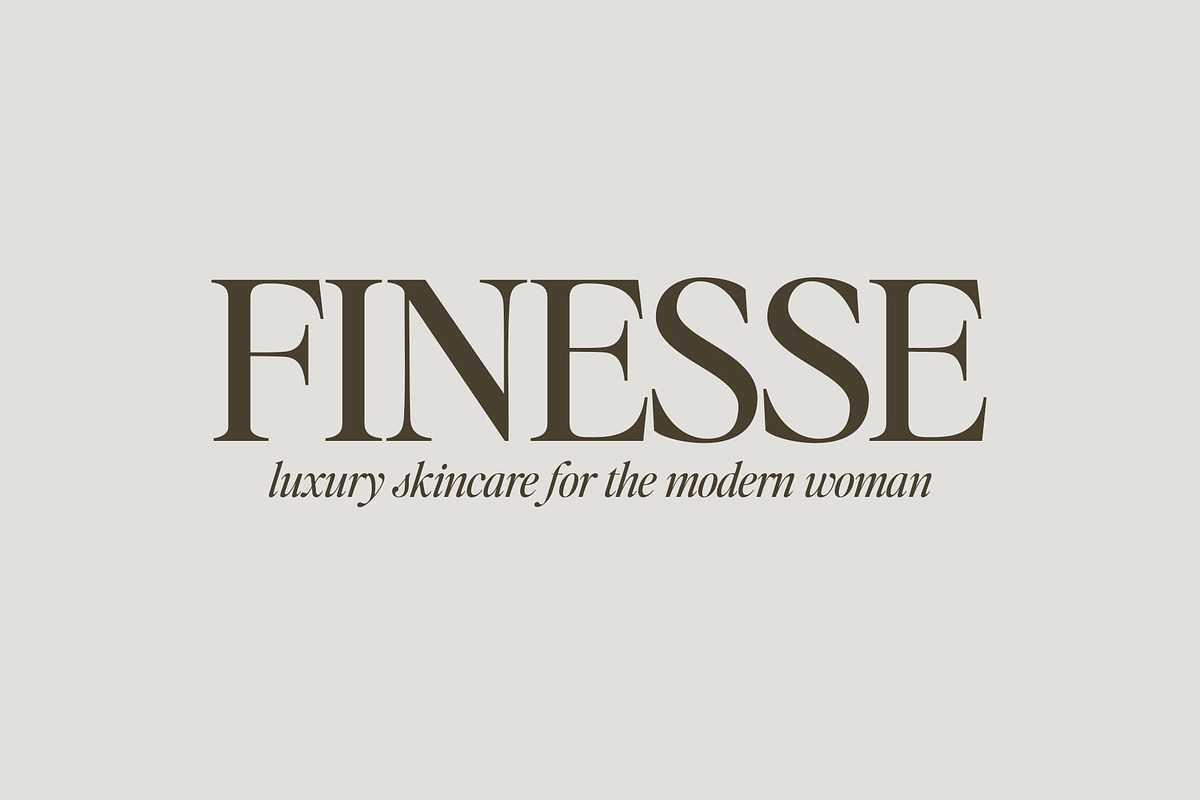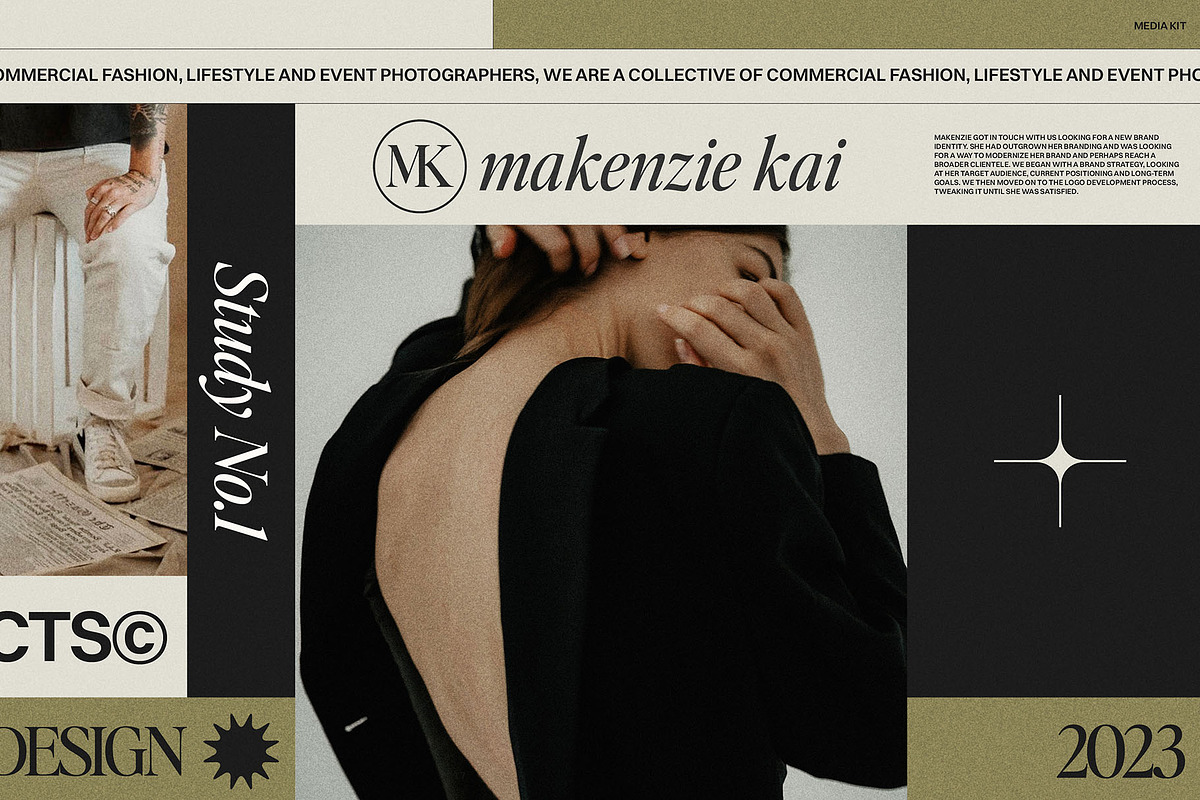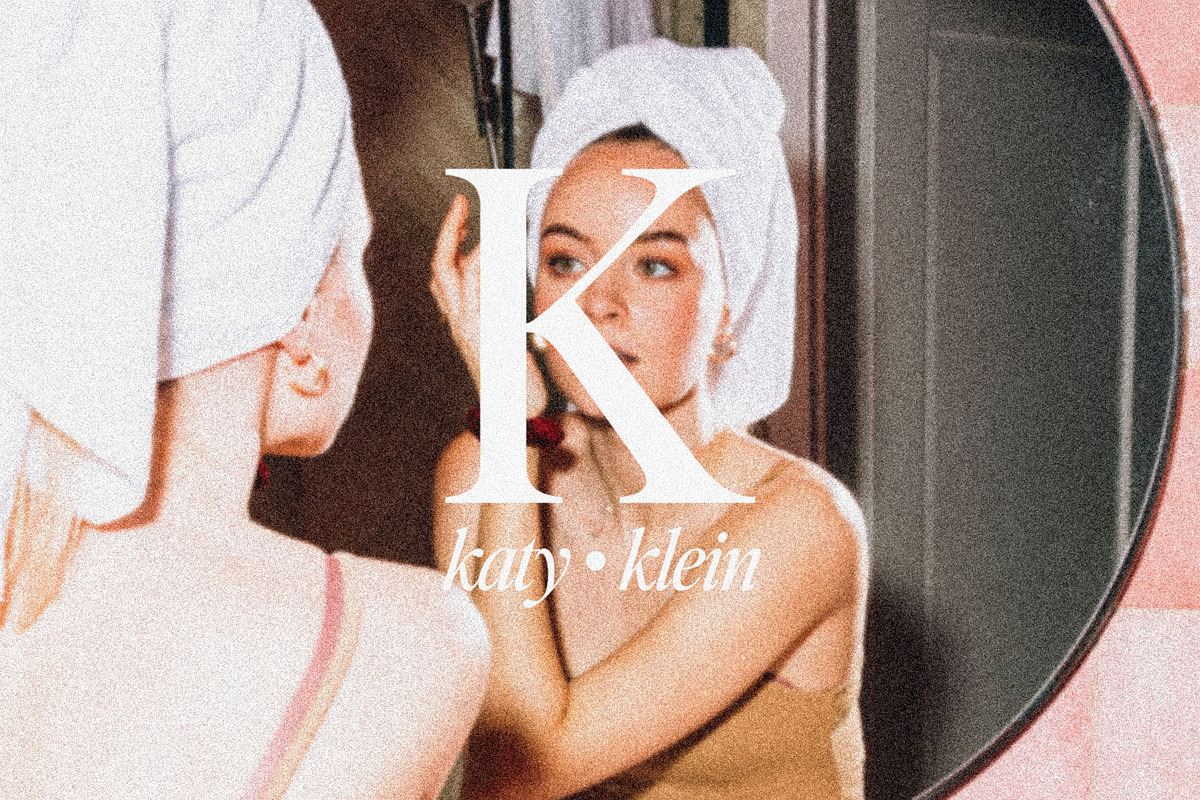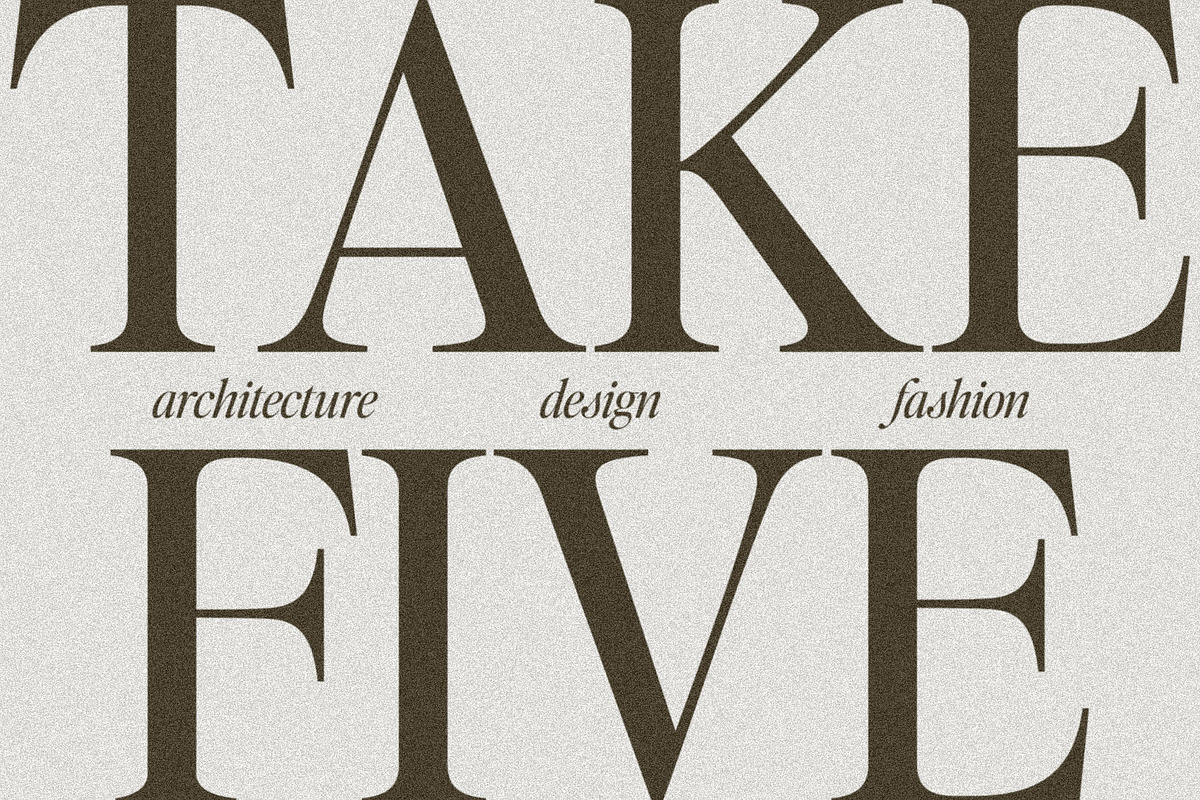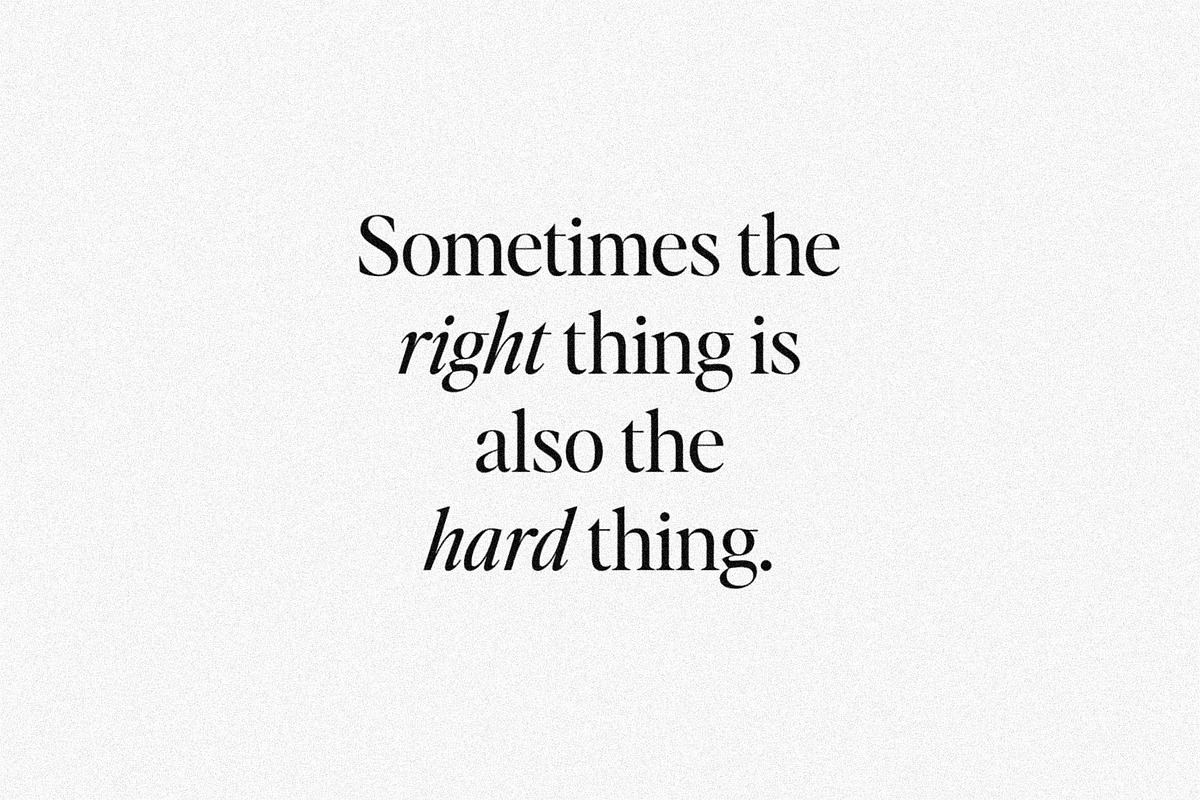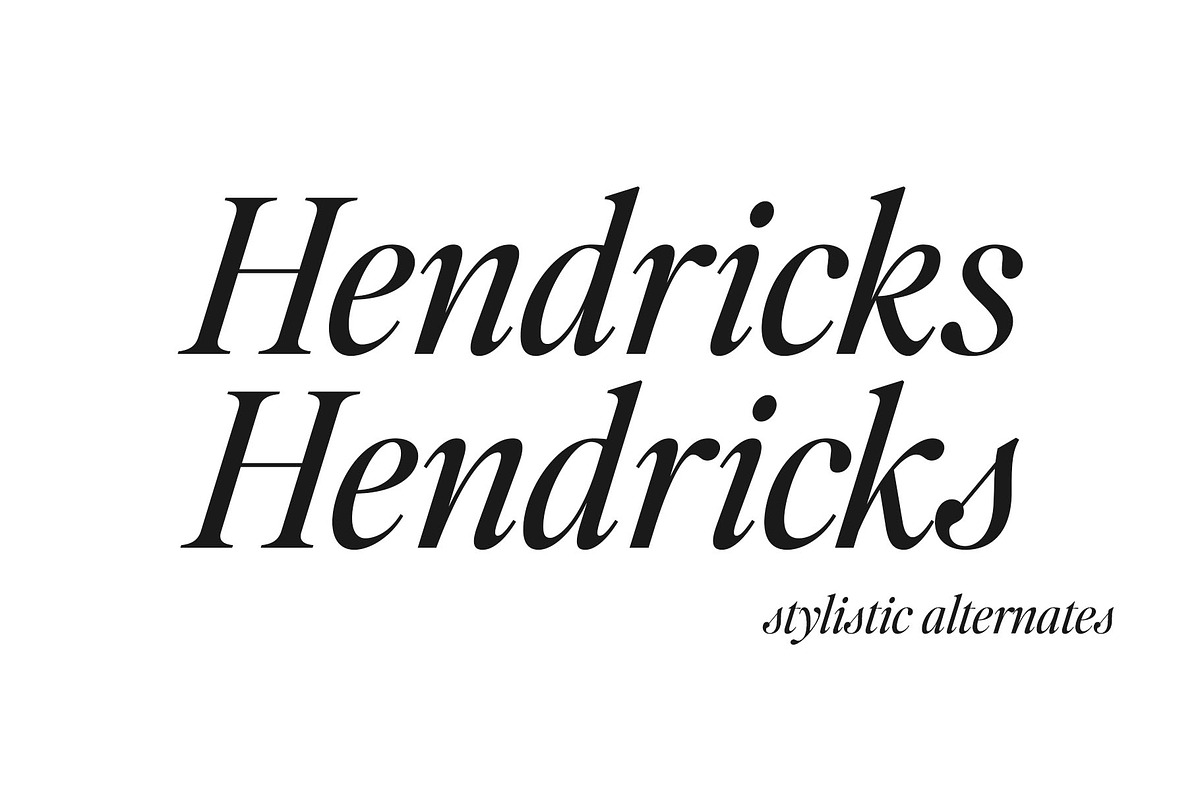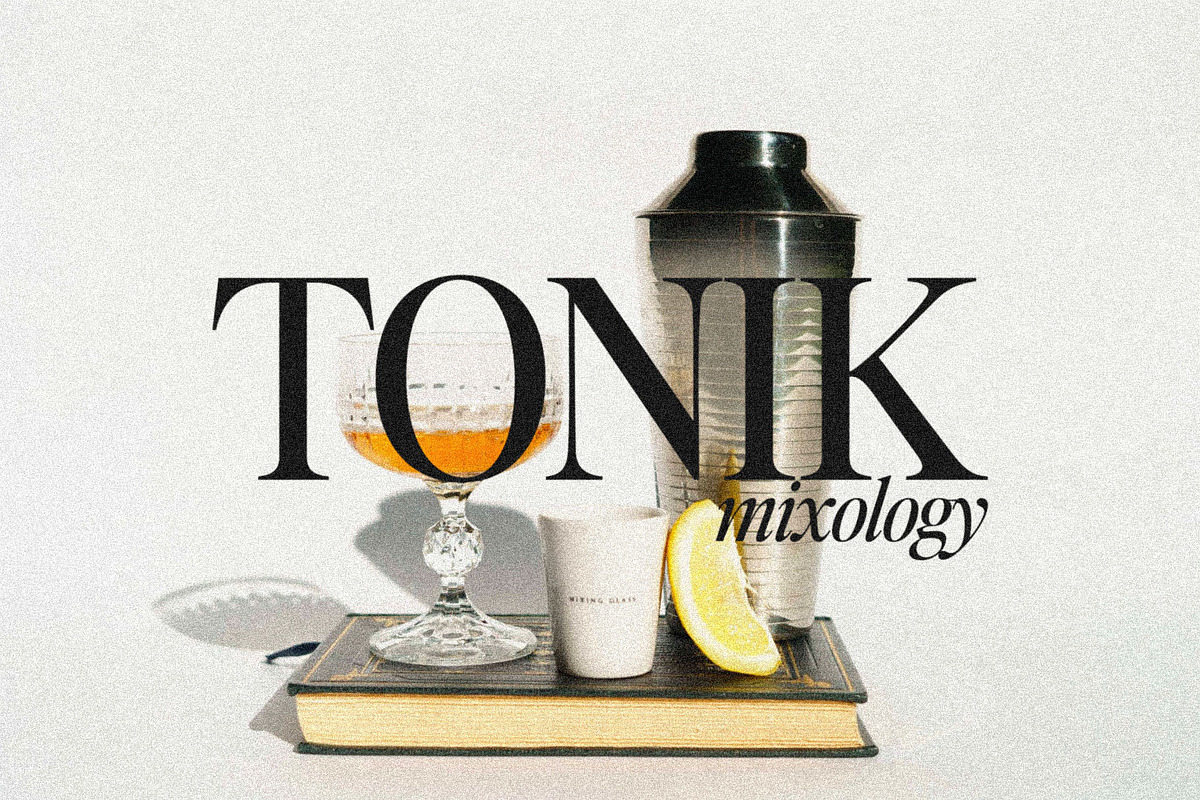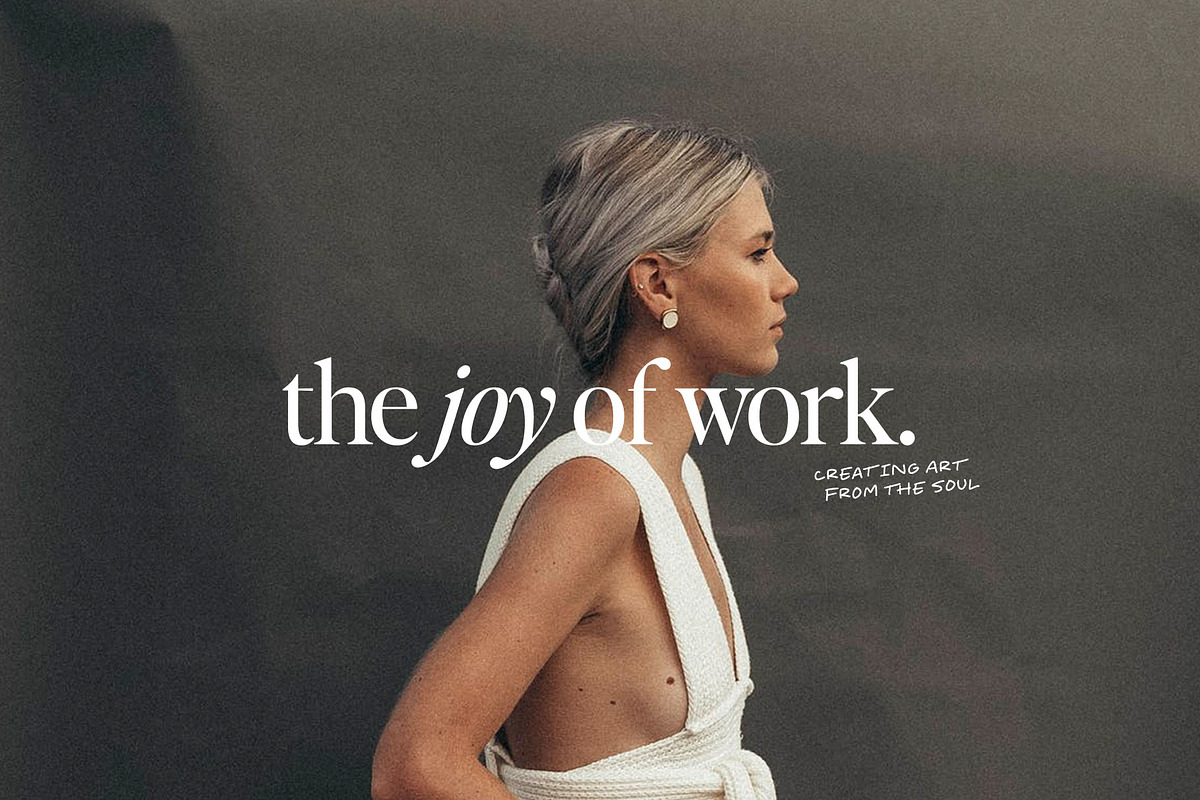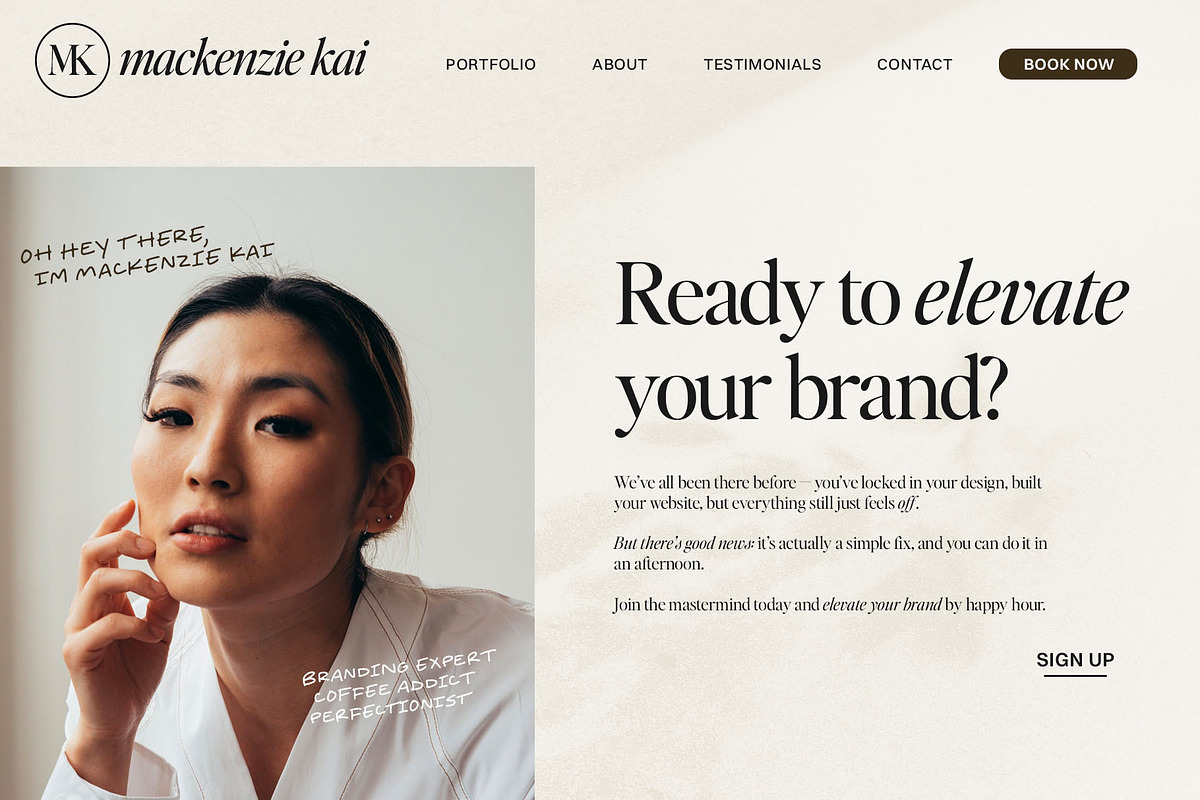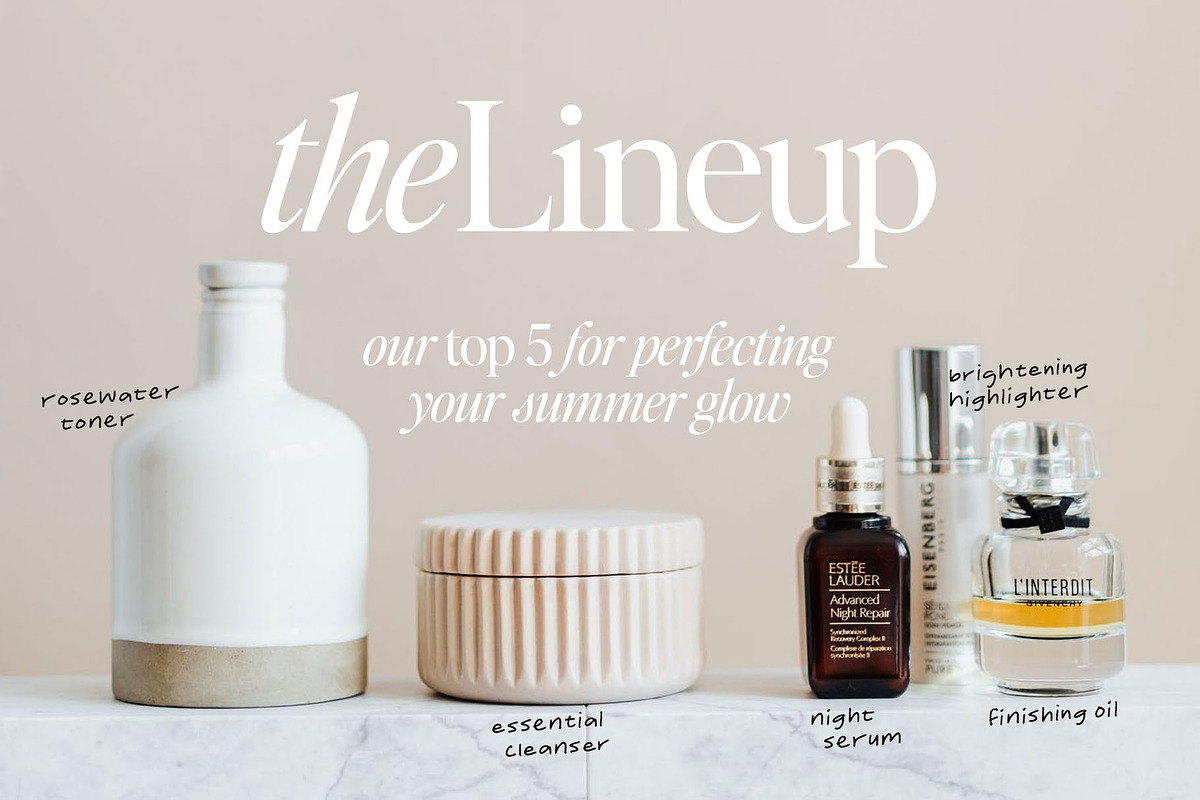
Editor's Note: Clean Editorial Serif
Introducing Editor's Note – a brand new editorial serif with all the clean lines, tight curves, and trendy minimalist vibes!
I've been loving the clean, editorial type trend happening in design right now (let's be real, there's always a place for timeless editorial type).
Editor's Note is a stunningly crisp upper and lowercase typeface that looks incredible in both large settings as a display text (think big headers, pretty quotes, calls to action, etc.).
I've been loving combining the regular and italic, especially in big, bold quotes (see the "It's time to start believing in yourself" quote, image #3)
One thing to note about Editor's Note is the letter spacing. It was intentionally spaced for clean reading and intentional balance, so I recommend setting the spacing a little tighter if you want to create the trendy, all caps look found in many of these images, like image #2 (around -20 to -35 should do!).
Recommended Font Pairings
- Editor's Note Regular (uppercase & lowercase)
- Editor's Note Italic (uppercase & lowercase)